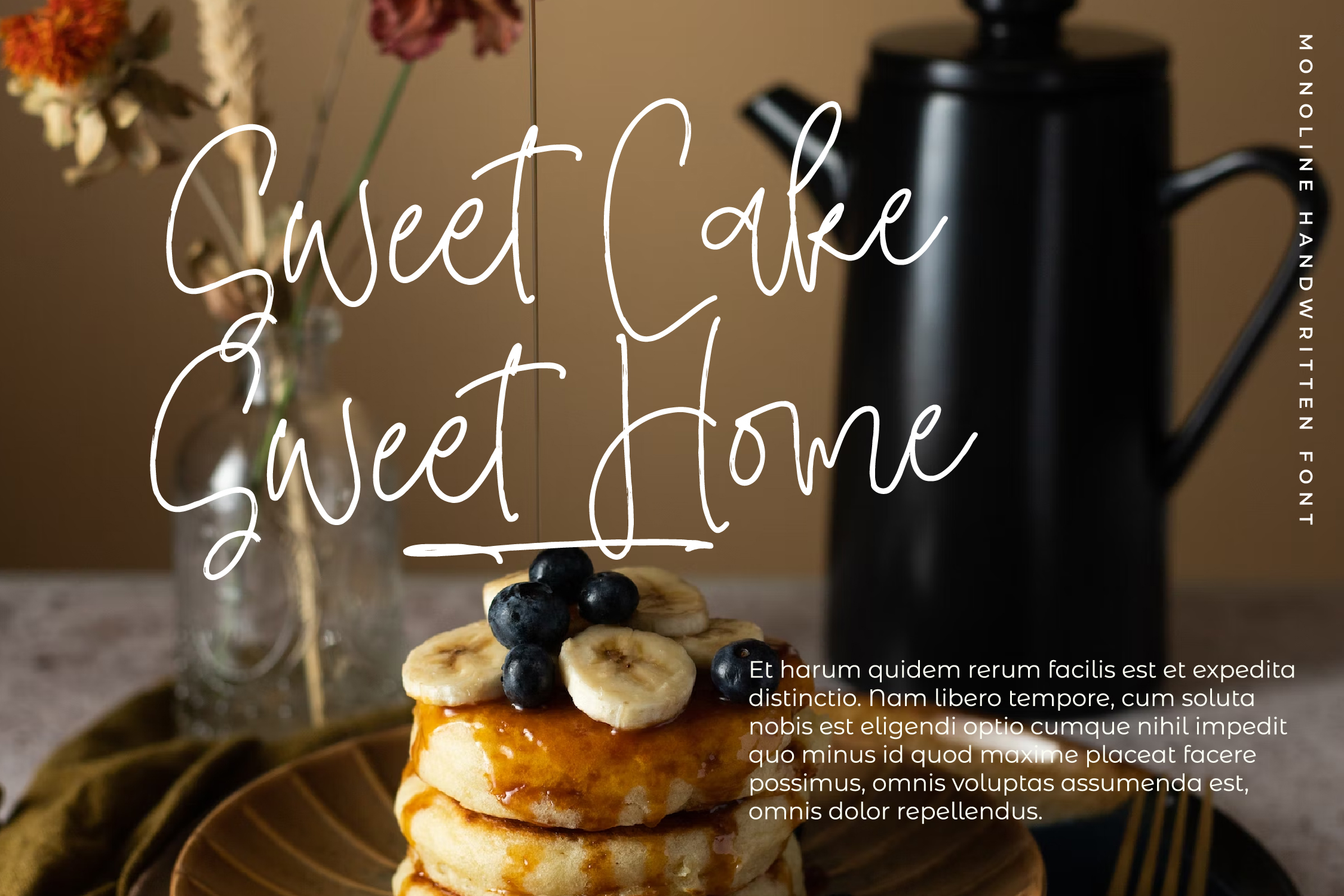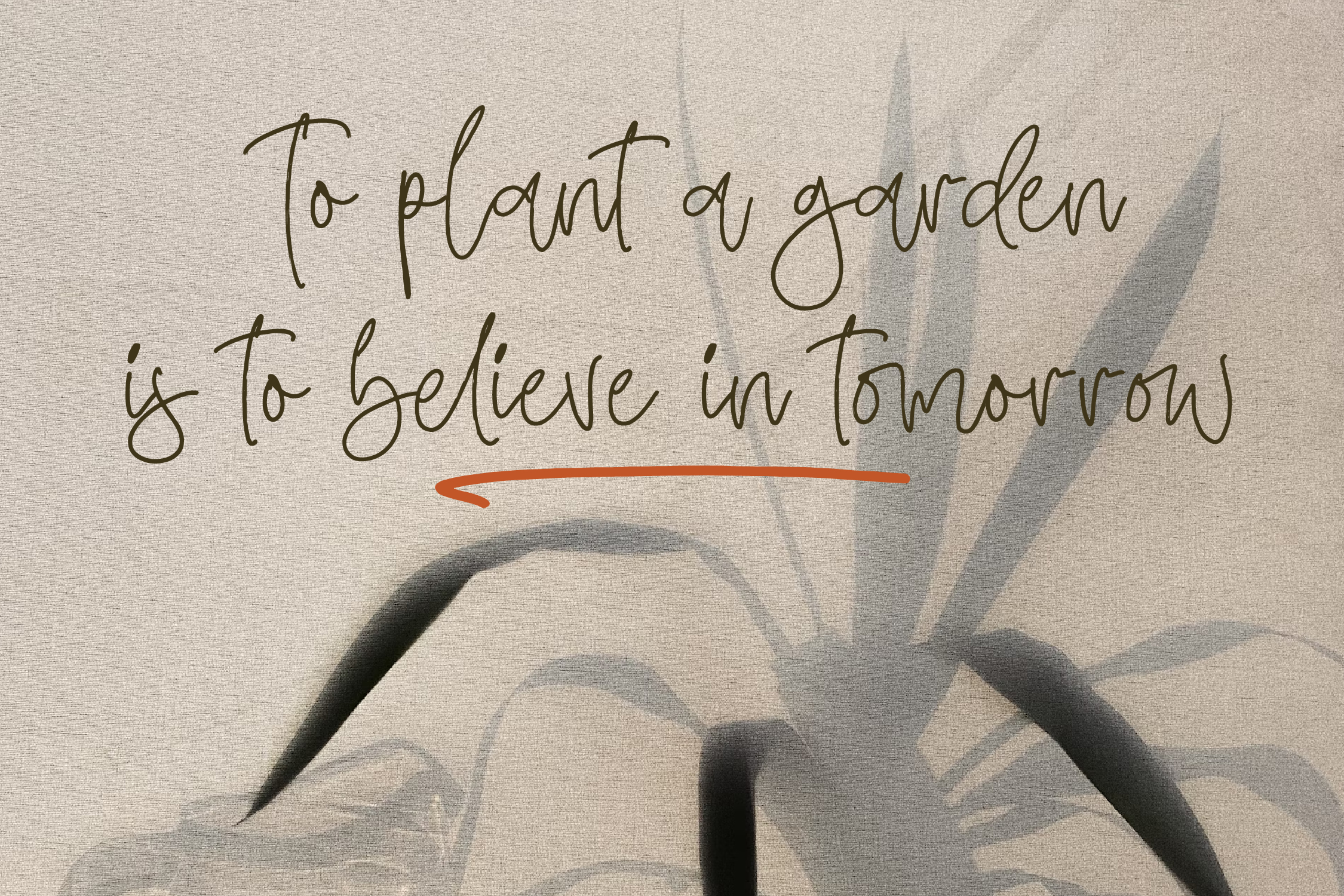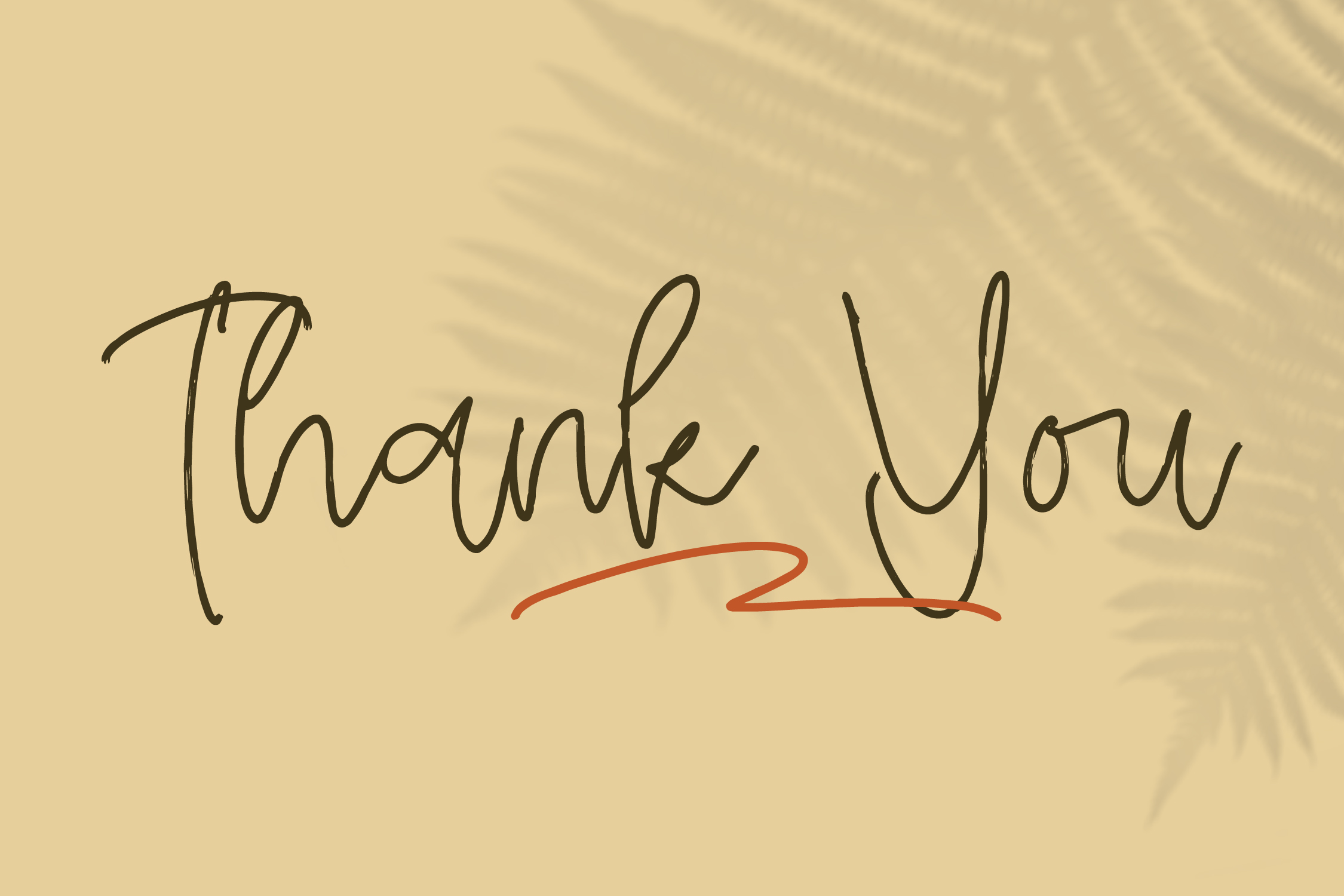
Swash Zillong Font
Swash Zillong Handwritten Font is Monoline Handwritten Font ,  suitable for any projects such as: logos, branding projects, homeware designs, product packaging, mugs, quotes, posters, shopping bags, t-shirts, book covers, name card, invitation cards, greeting cards, label, photography, watermark, special events, and all your other lovely projects that need a beautiful script taste.